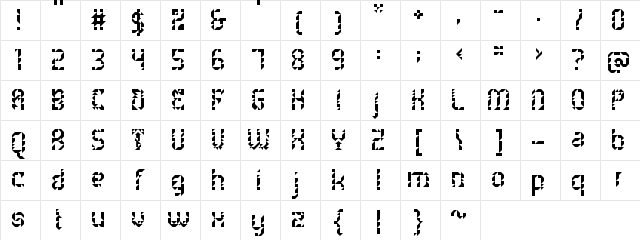
5Metrik Light Alien Regular Free Font
5Metrik Light Alien Regular
Designer: Noah - 11 year old typomaniac
Design Context for 5Metrik Light Alien
5Metrik Light Alien is a composed and adaptable typeface that performs quietly and consistently across a wide range of design contexts. Its slender proportions lend an understated elegance to any composition.